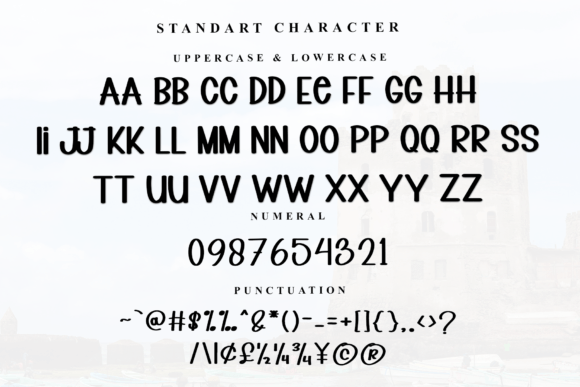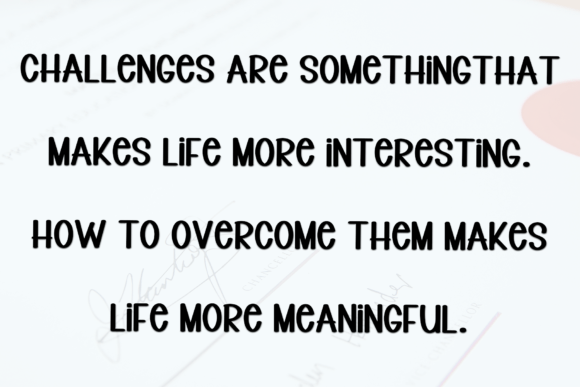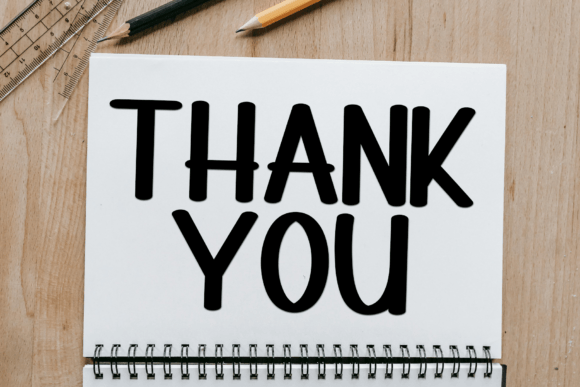
Introduction to Mega Vintage Font
Have you ever stared at a blank canvas, waiting for the perfect font to bring your creative project to life? That’s exactly what happened to me last week, and I’m thrilled to share with you a game-changing discovery – the Mega Vintage Font. This stunning, high-quality font has been making waves in the design community, and for good reason.
As a designer, I know how crucial it is to have a versatile font that can elevate any design. The Mega Vintage Font is just that – delicate, elegant, and timeless. Its beautiful, well-balanced characters make it a perfect match for a wide range of designs, from elegant invitations to creative logos.
Key Features of Mega Vintage Font
- High-quality design: Mega Vintage Font is a premium-quality font, perfect for creative projects that require a touch of elegance and sophistication.
- Unique, hand-drawn style: Mega Vintage Font features a unique, hand-drawn style that gives it a personal and creative touch.
- Large character set: The font includes a large character set, including uppercase and lowercase letters, numbers, and punctuation marks.
Honest Review: Mega Vintage Font
As a designer, I’m always on the lookout for high-quality design resources to elevate my creative projects. The Mega Vintage Font is one such find that has piqued my interest. Here’s my take on this retro-style font.
- Unique and nostalgic aesthetic: The Mega Vintage Font has a distinct retro feel that’s perfect for creating a nostalgic atmosphere in your designs.
- Limited character set: The Mega Vintage Font’s character set is limited, which may not be ideal for projects requiring a wide range of characters.
- Not suitable for modern designs: While the font’s nostalgic aesthetic is great for retro-themed projects, it may not be the best choice for modern and minimalist designs.
Overall, the Mega Vintage Font is a great addition to any designer’s toolkit. While it has its limitations, its unique aesthetic and free download make it a worthwhile resource for creative projects. With some careful planning, you can use this font to create stunning designs that transport your audience back in time.
Mega Vintage Font
Tips for Getting the Most Out of Mega Vintage Font
Mega Vintage Font is perfect for creative projects, such as wedding invitations, event flyers, and product packaging. Its unique and stylish design makes it an excellent choice for designers looking for a free download that can elevate their design resource.